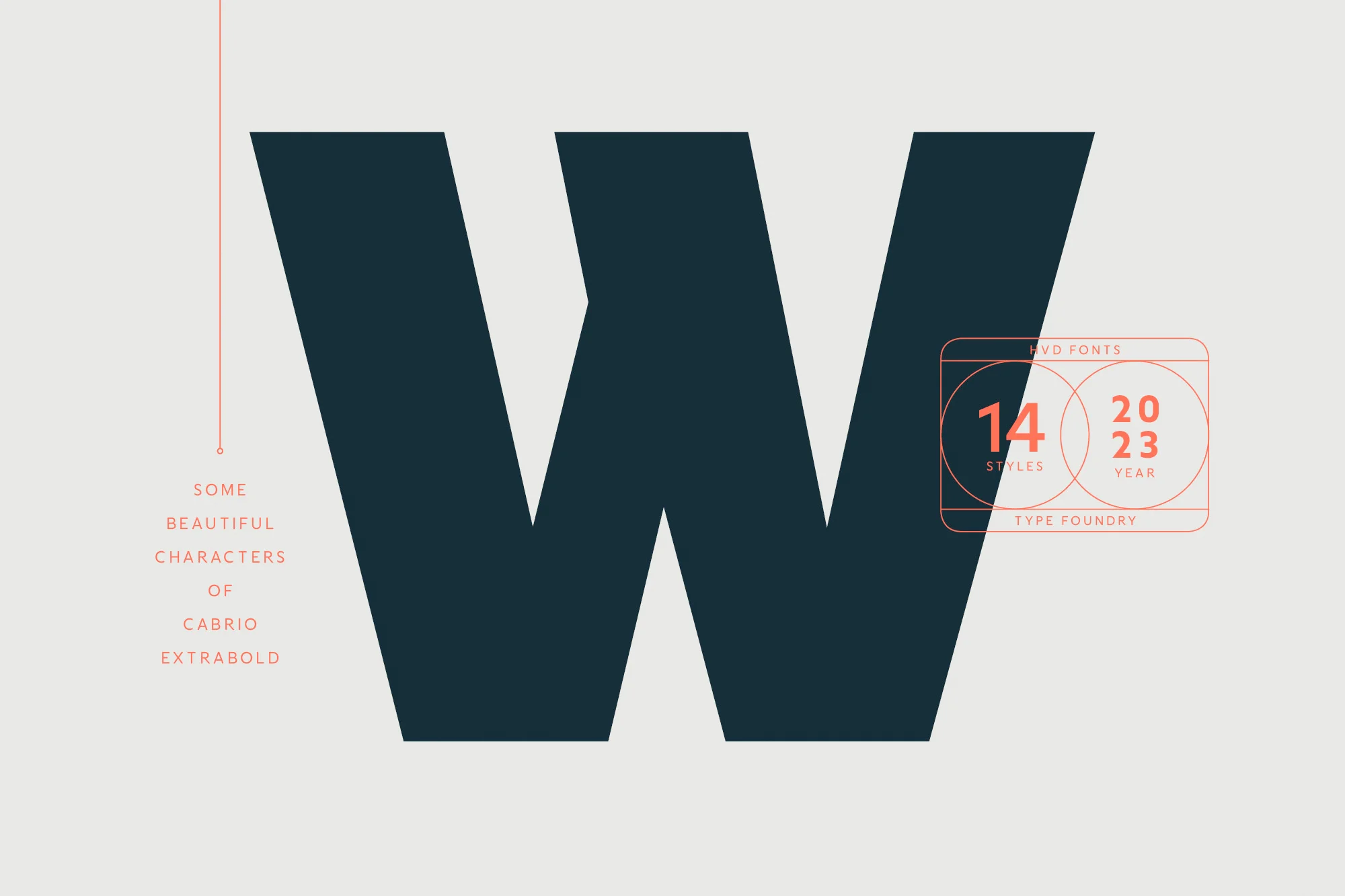
A humanist sans-serif from HvD Fonts with open, warm letterforms suited to both text and display settings.
Cabrio sits within the humanist sans-serif tradition, offering letterforms with warmth and legibility at a range of sizes. The family is designed at HvD Fonts for versatile use across editorial, branding and screen contexts. Details were limited at time of cataloguing due to access restrictions on the foundry's website.
Cabrio is a humanist sans-serif from HvD Fonts, drawing on warm, open letterform traditions suited to both text and display use.